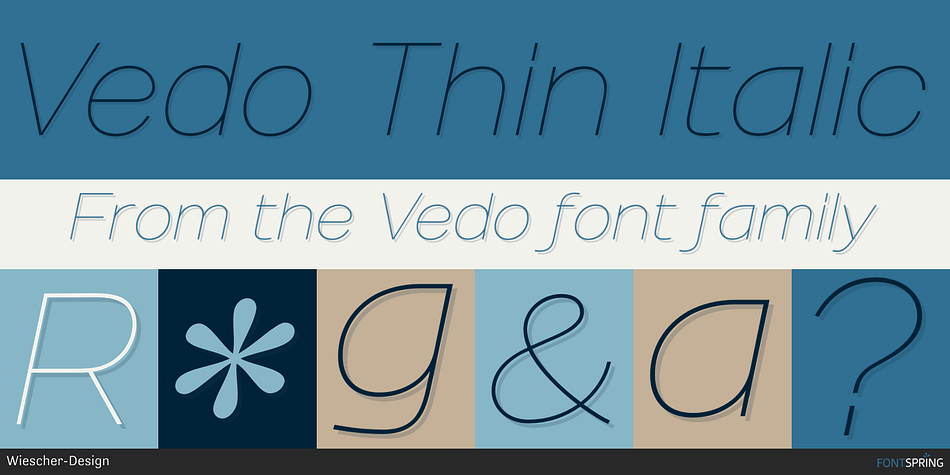
Vedo Thin Italic
Vedo is a sans serif font family. This typeface has fourteen styles and was published by Wiescher-Design.
The name »Vedo« is derived from the Latin word for »I see«.
The name »Vedo« is derived from the Latin word for »I see«. Vedo is a new, sturdy Sans Monoline in 7 weights and 7 Italic cuts. The »Thin« cuts are free of charge. Yours designing new fonts in the Bauhaus tradition Gert Wiescher